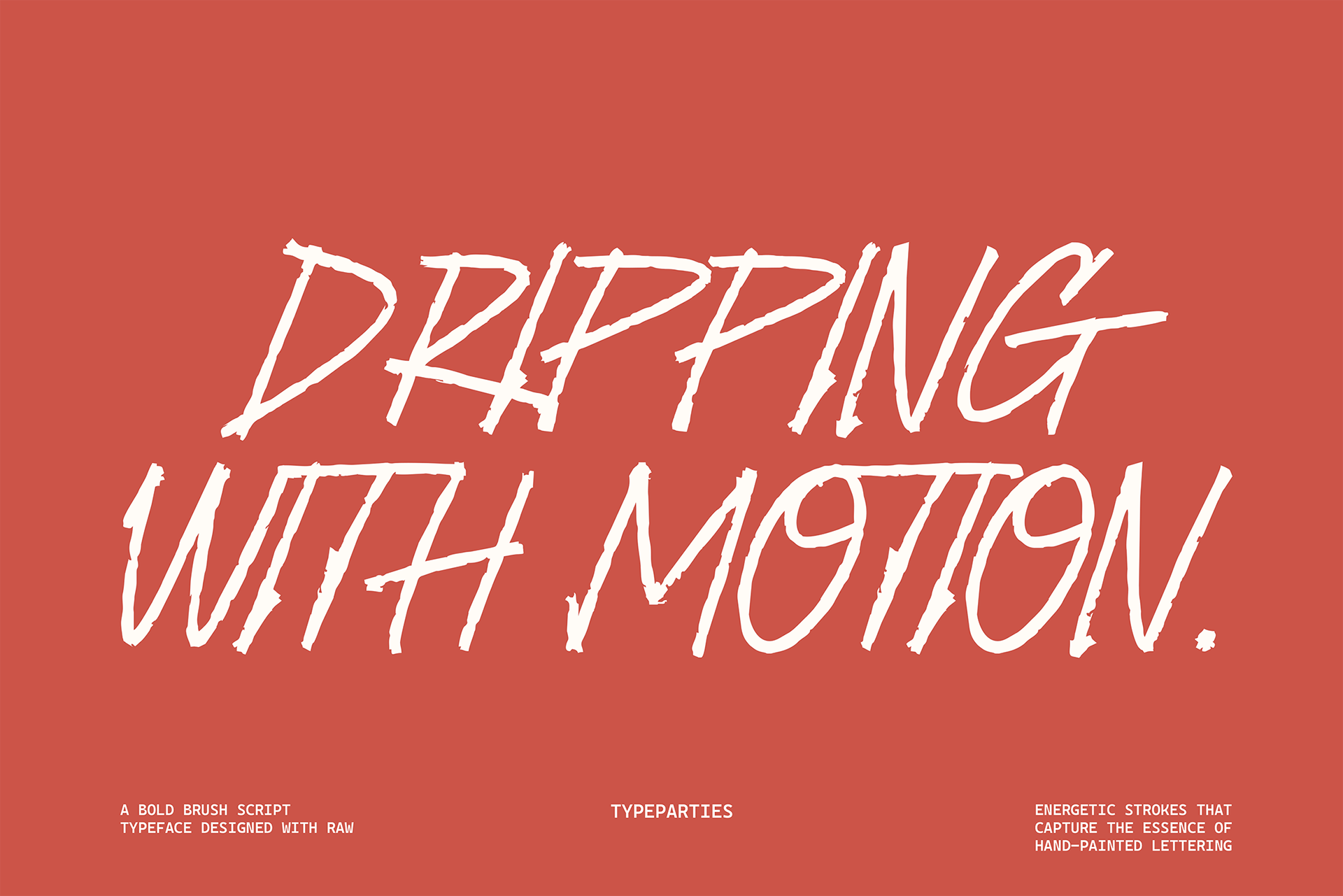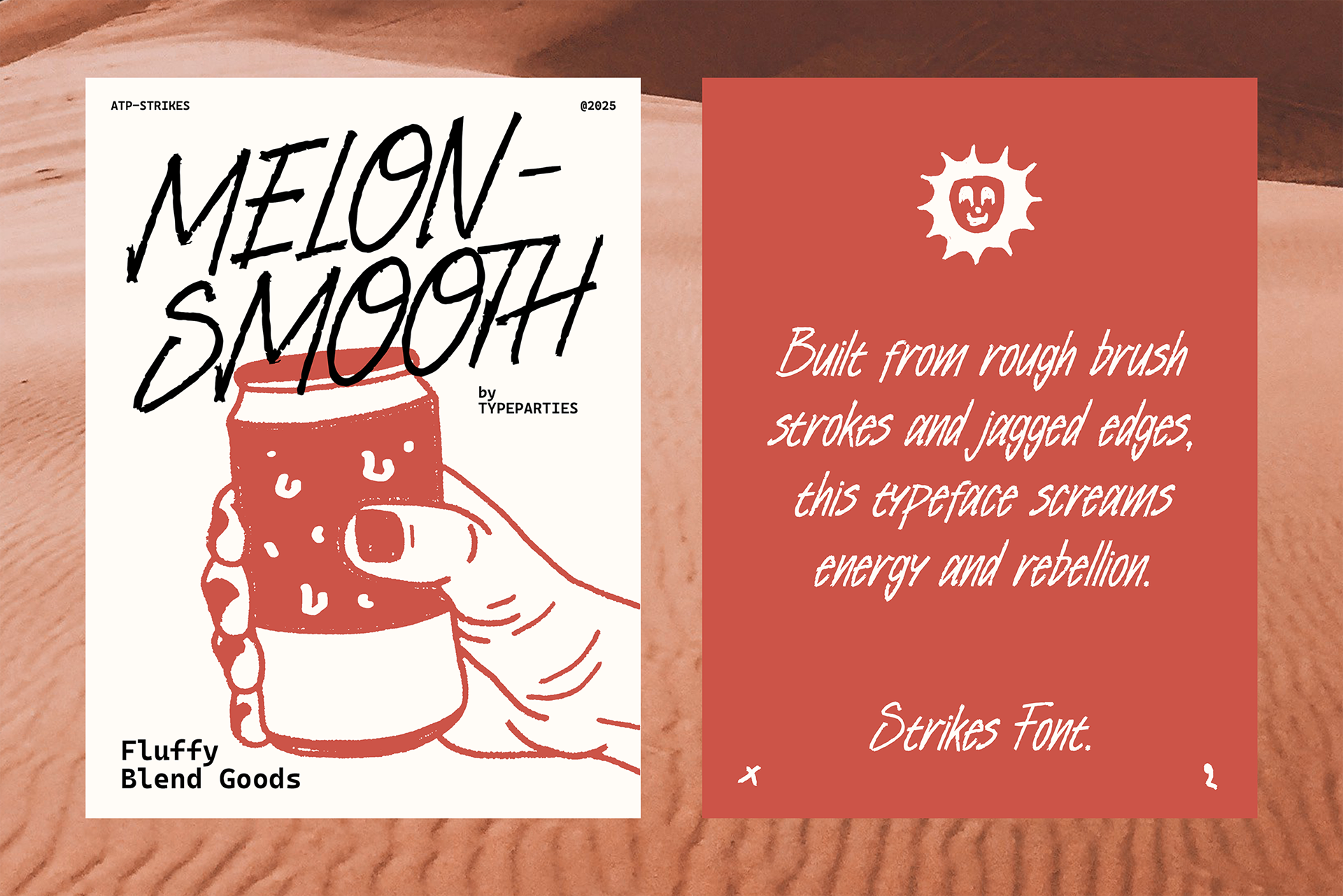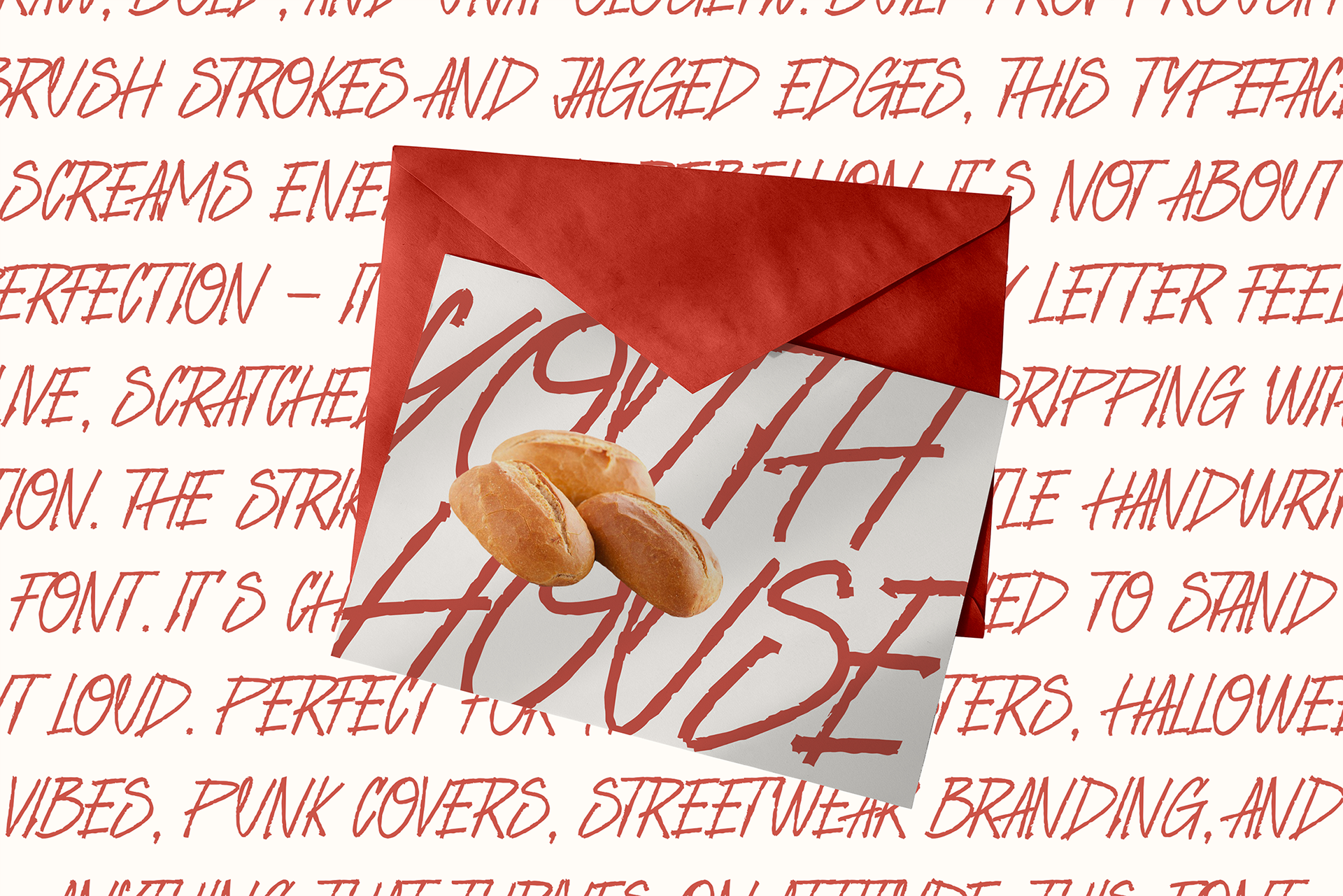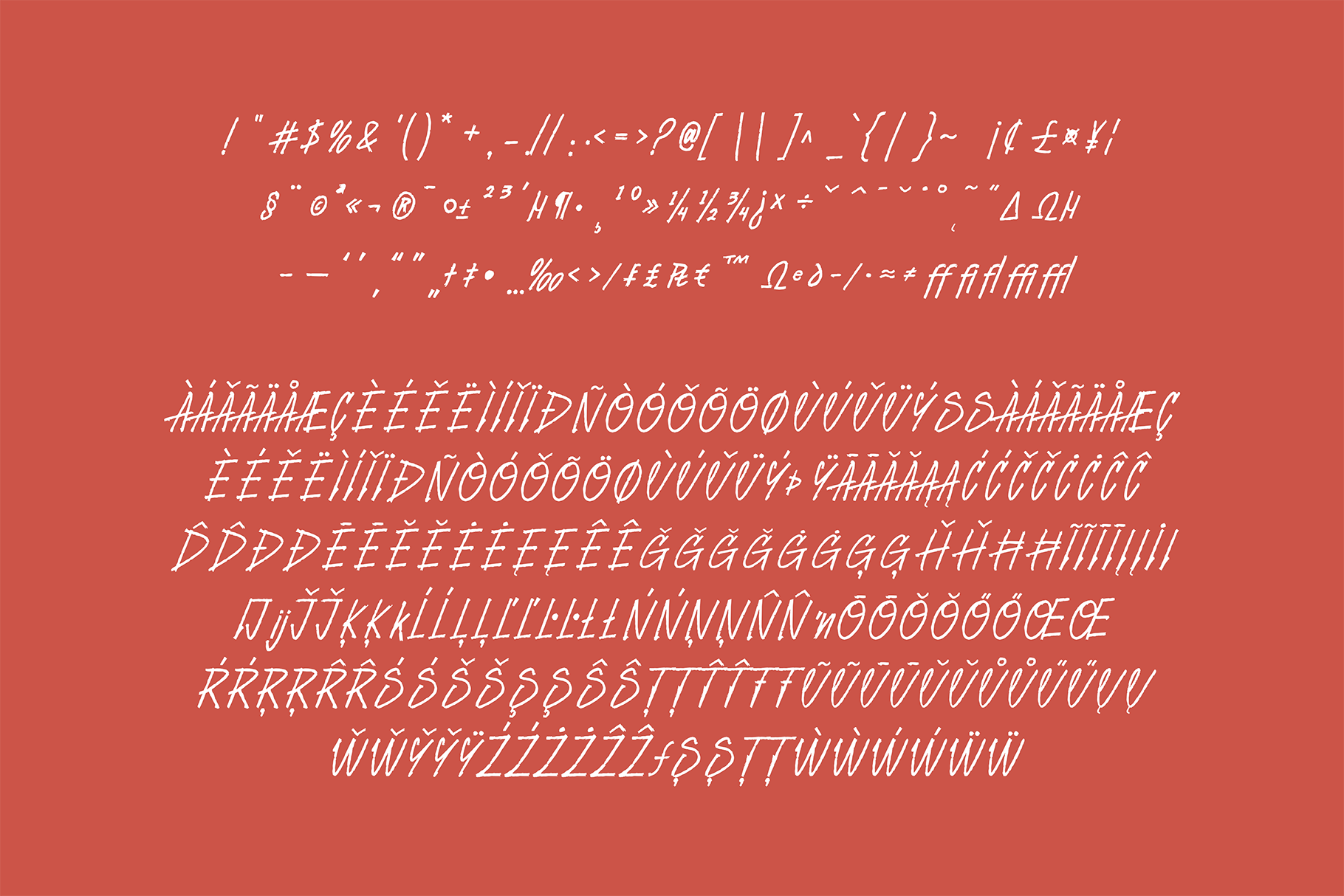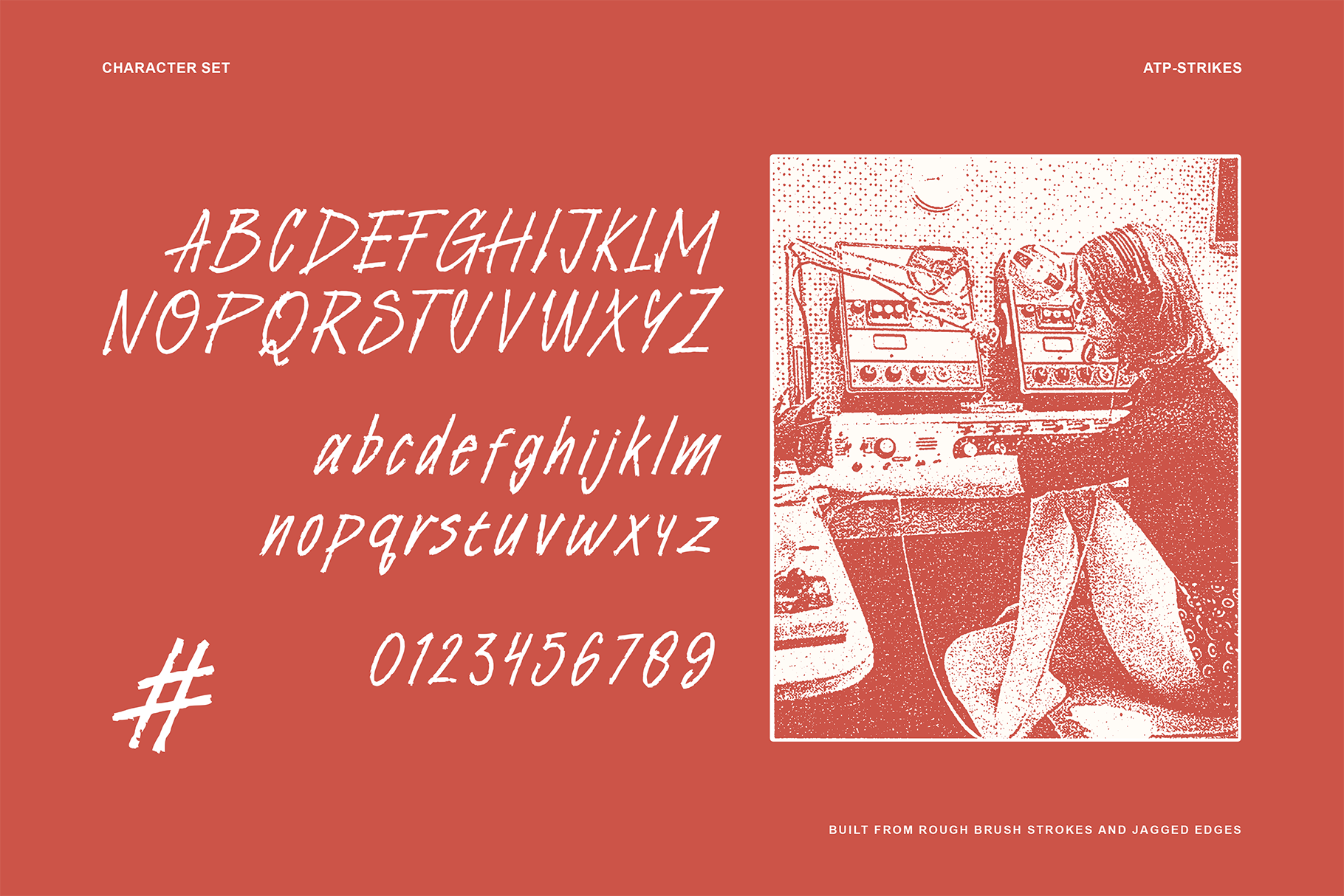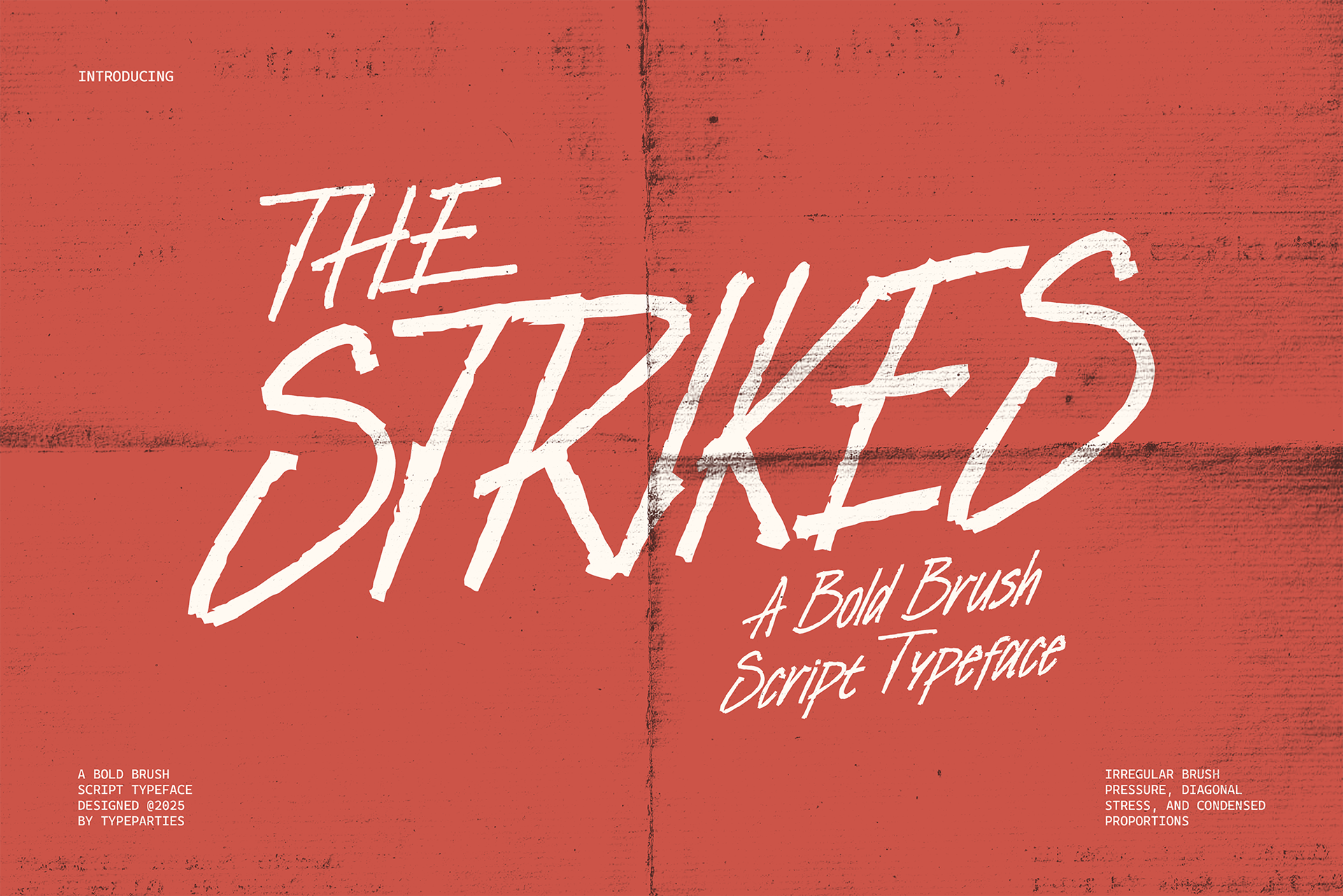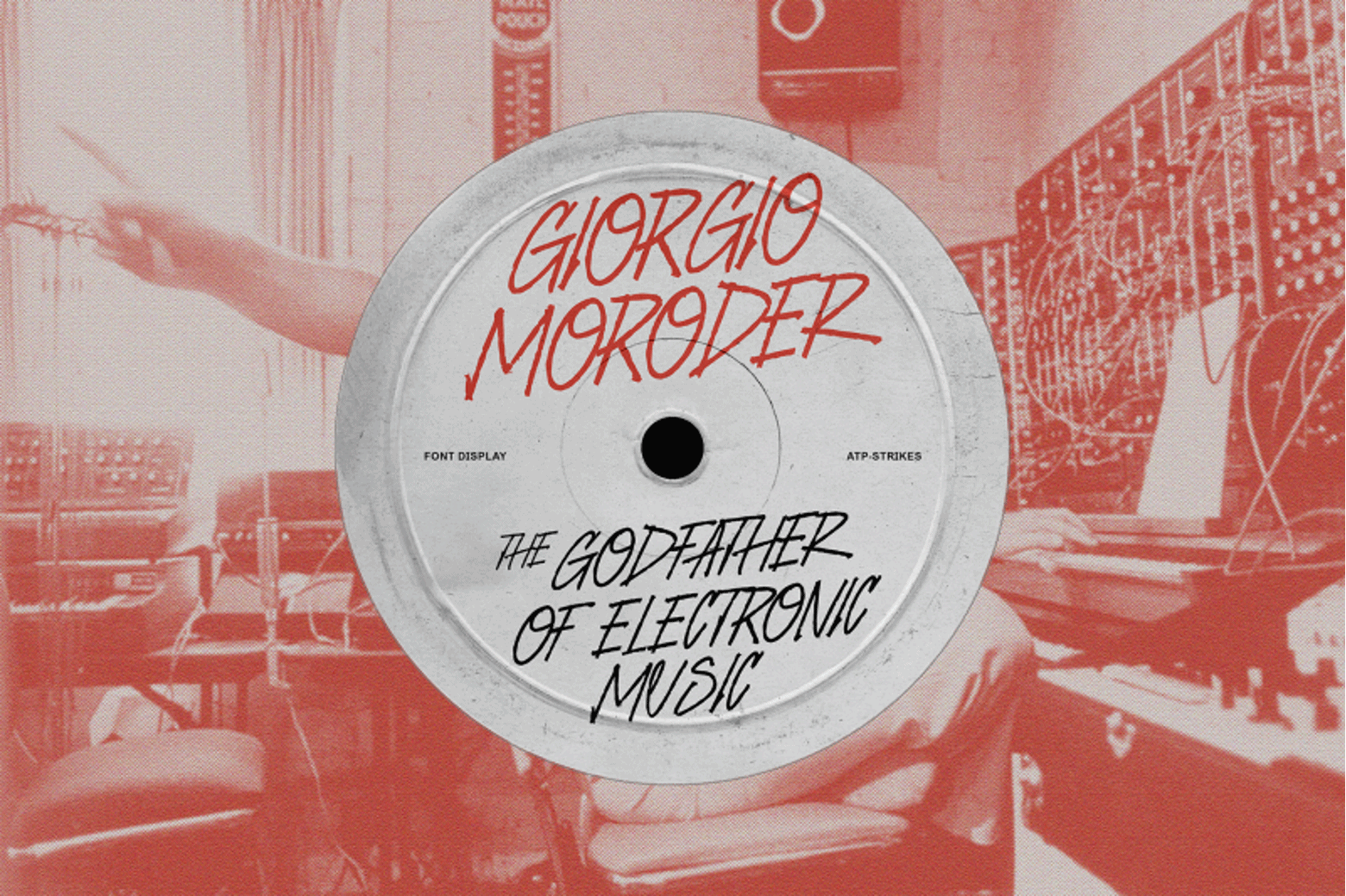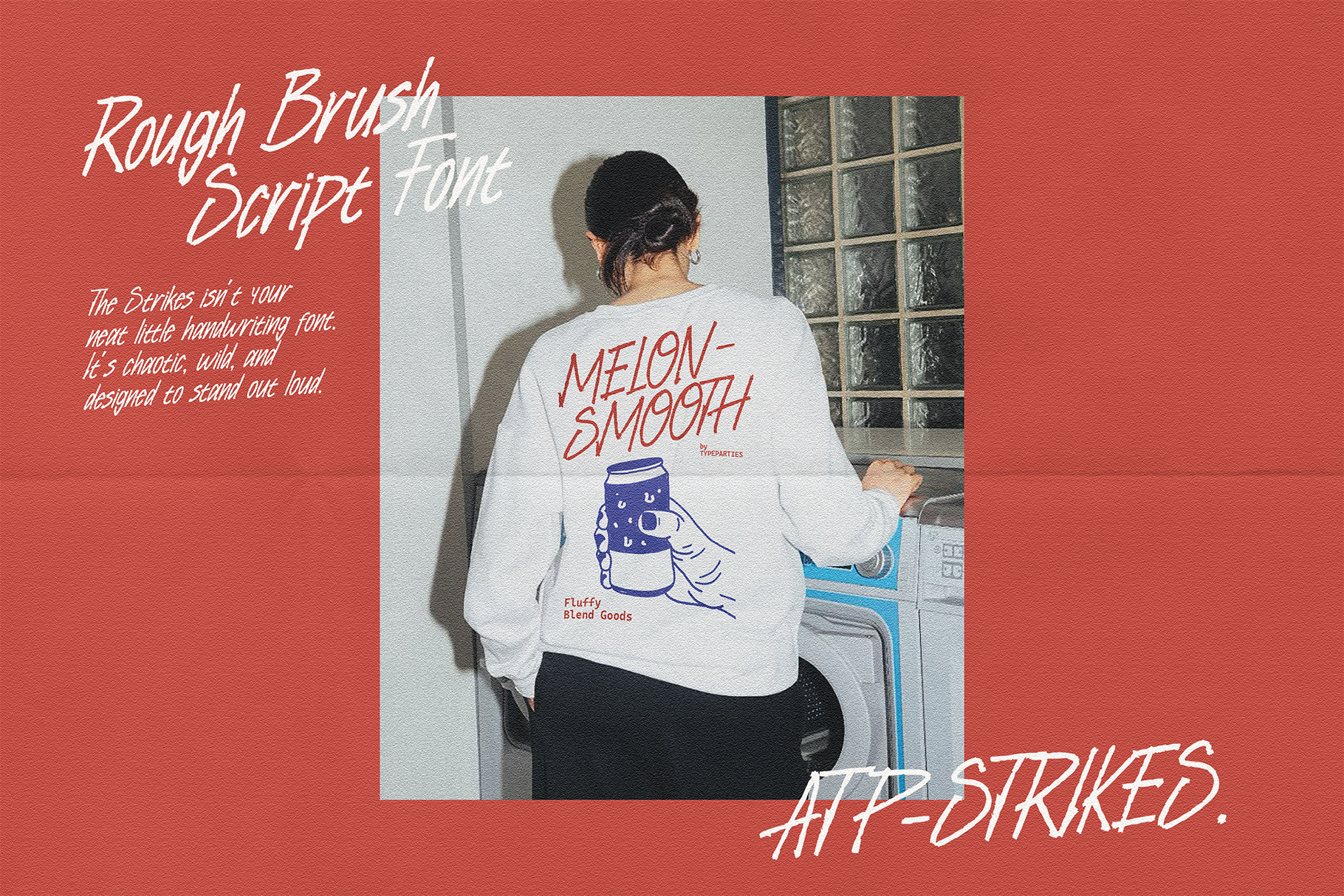
ATP-Strikes
The Strikes Font hits like a punch of adrenaline — raw, bold, and unapologetic. Built from rough brush strokes and jagged edges, this typeface screams energy and rebellion. It’s not about perfection — it’s about impact. Every letter feels alive, scratched with intensity and dripping with motion.
The Strikes isn’t your neat little handwriting font. It’s chaotic, wild, and designed to stand out loud. Perfect for horror posters, Halloween vibes, punk covers, streetwear branding, and anything that thrives on attitude, this font doesn’t whisper — it shouts.